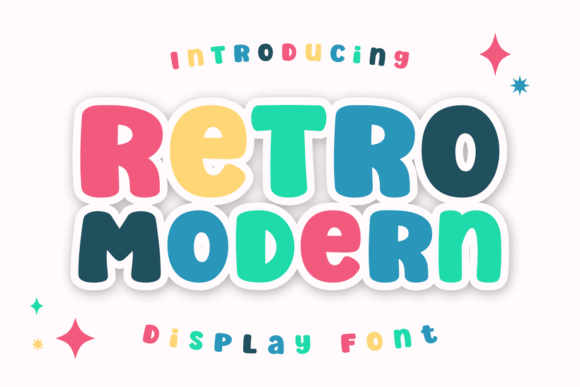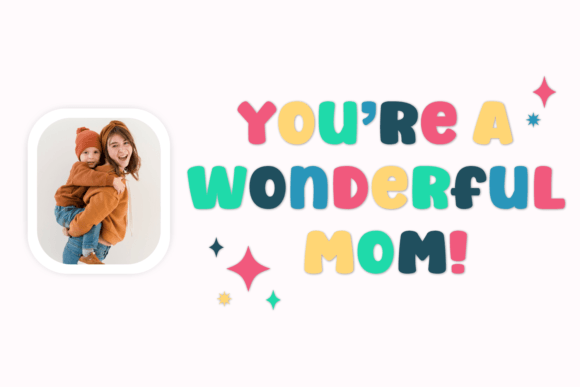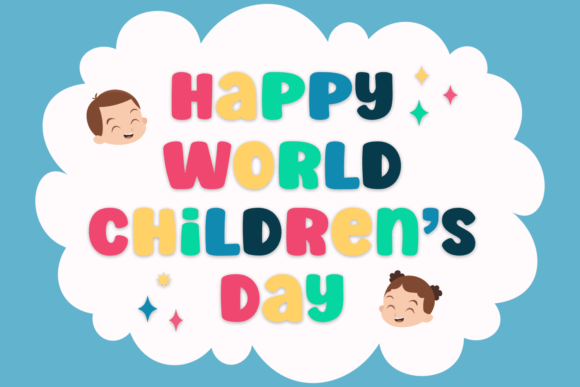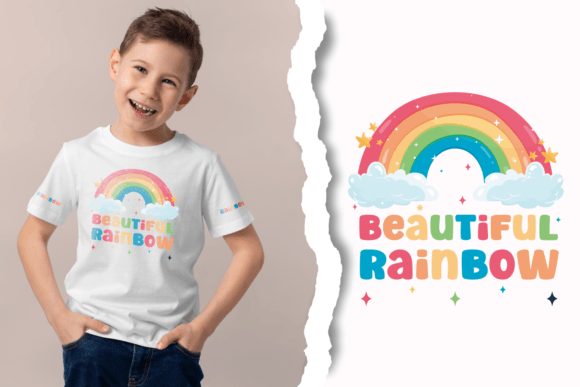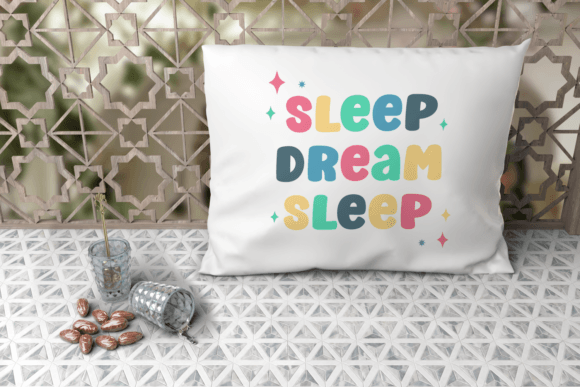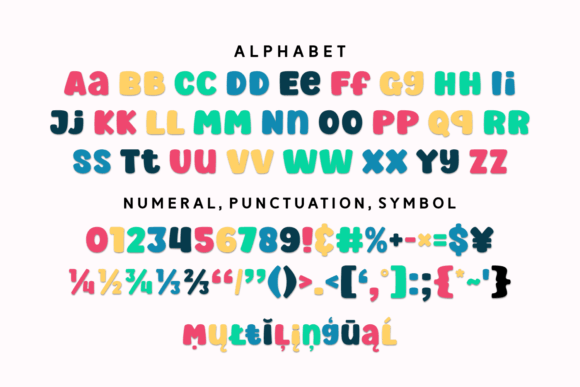
Retro Modern Font
Retro Modern is a font that will make your design looks bold, modern, unique, and fun. Perfect as a playful kids’ font with cartoon style. This font is specially crafted for children, Kids, Boys, Kindergarten, Birthday, and Comic purposes. This is a fun & chunky display font. It’s a cute and amazing display font that will make children’s themed designs stand out!